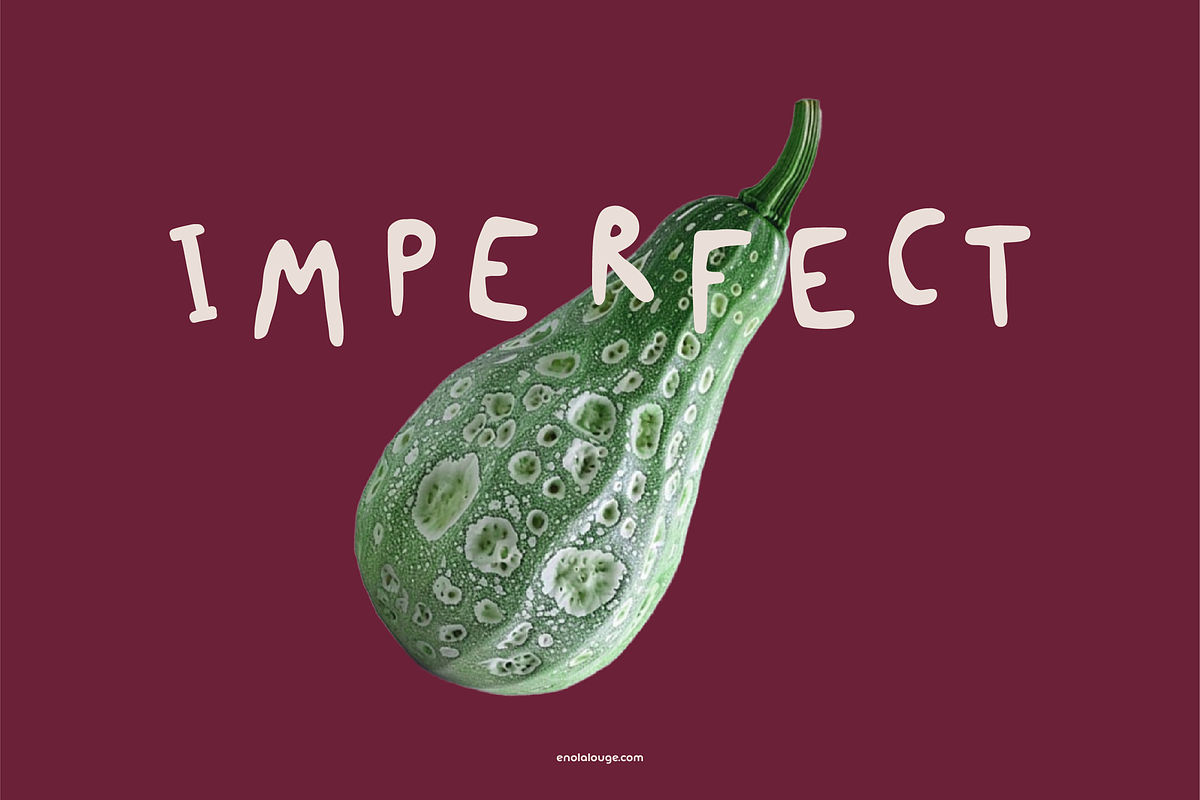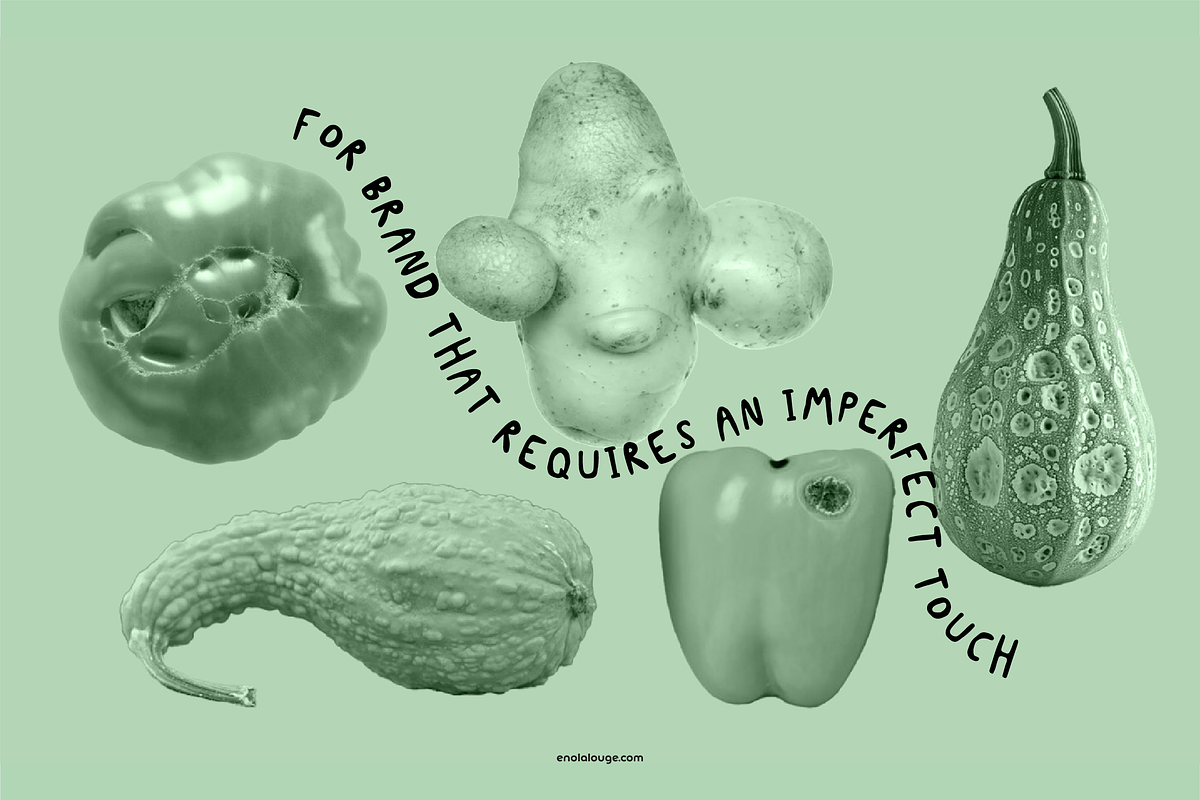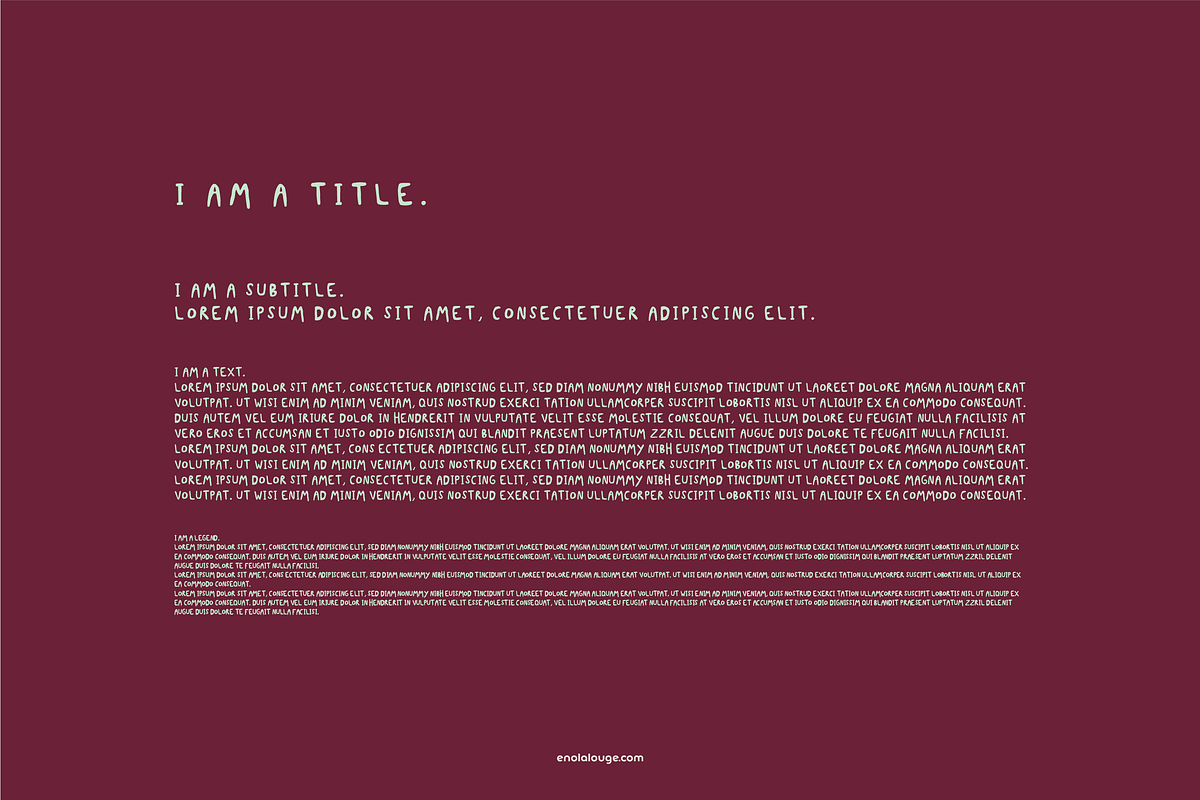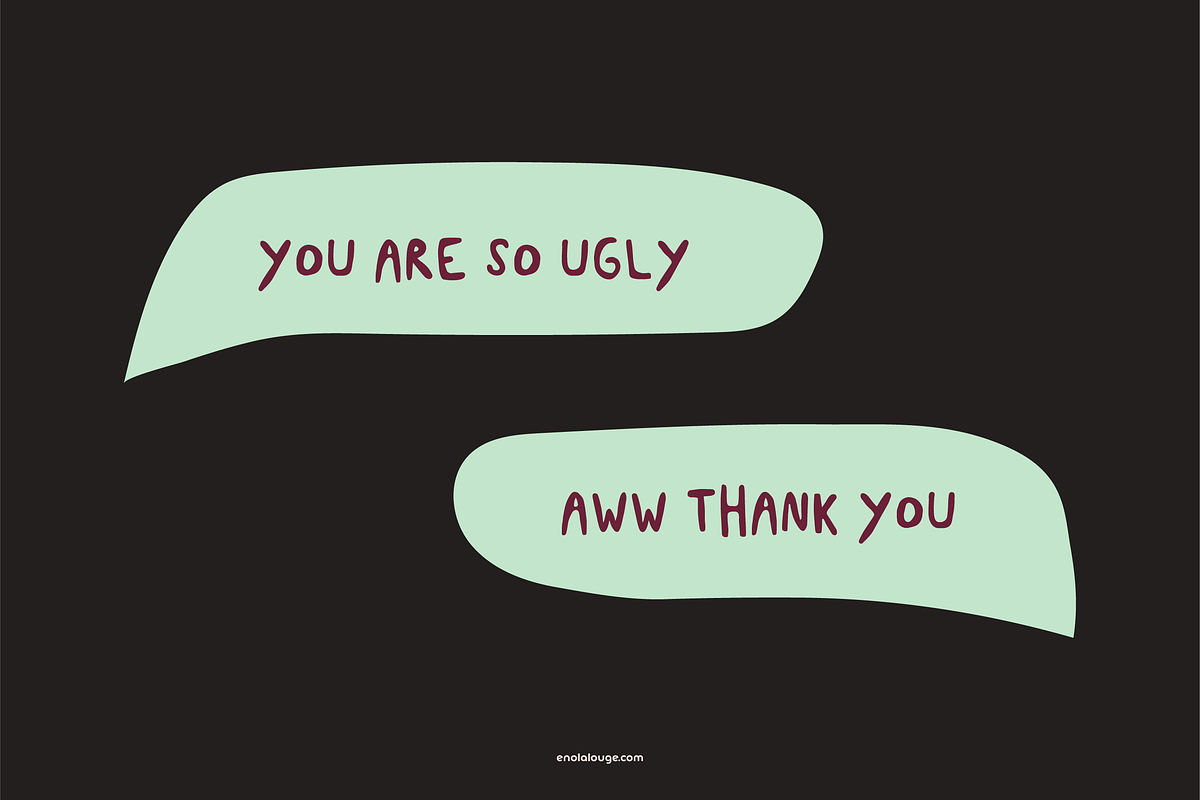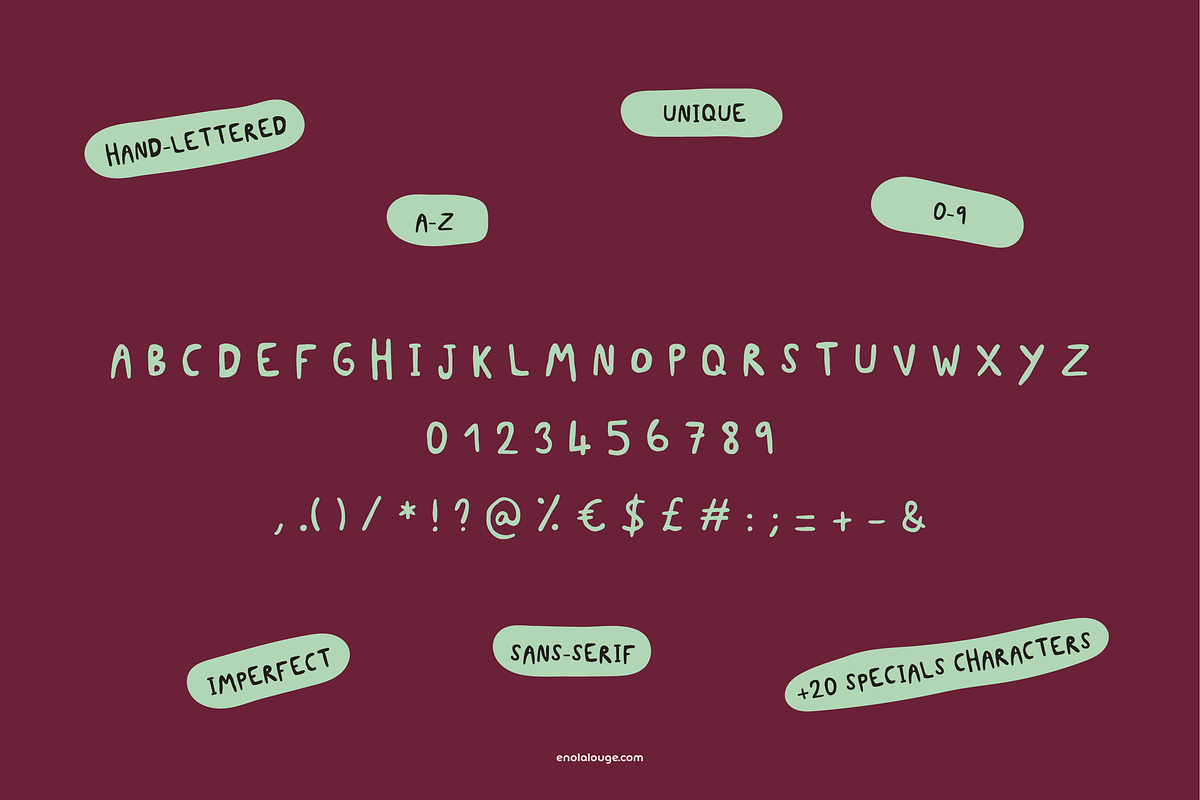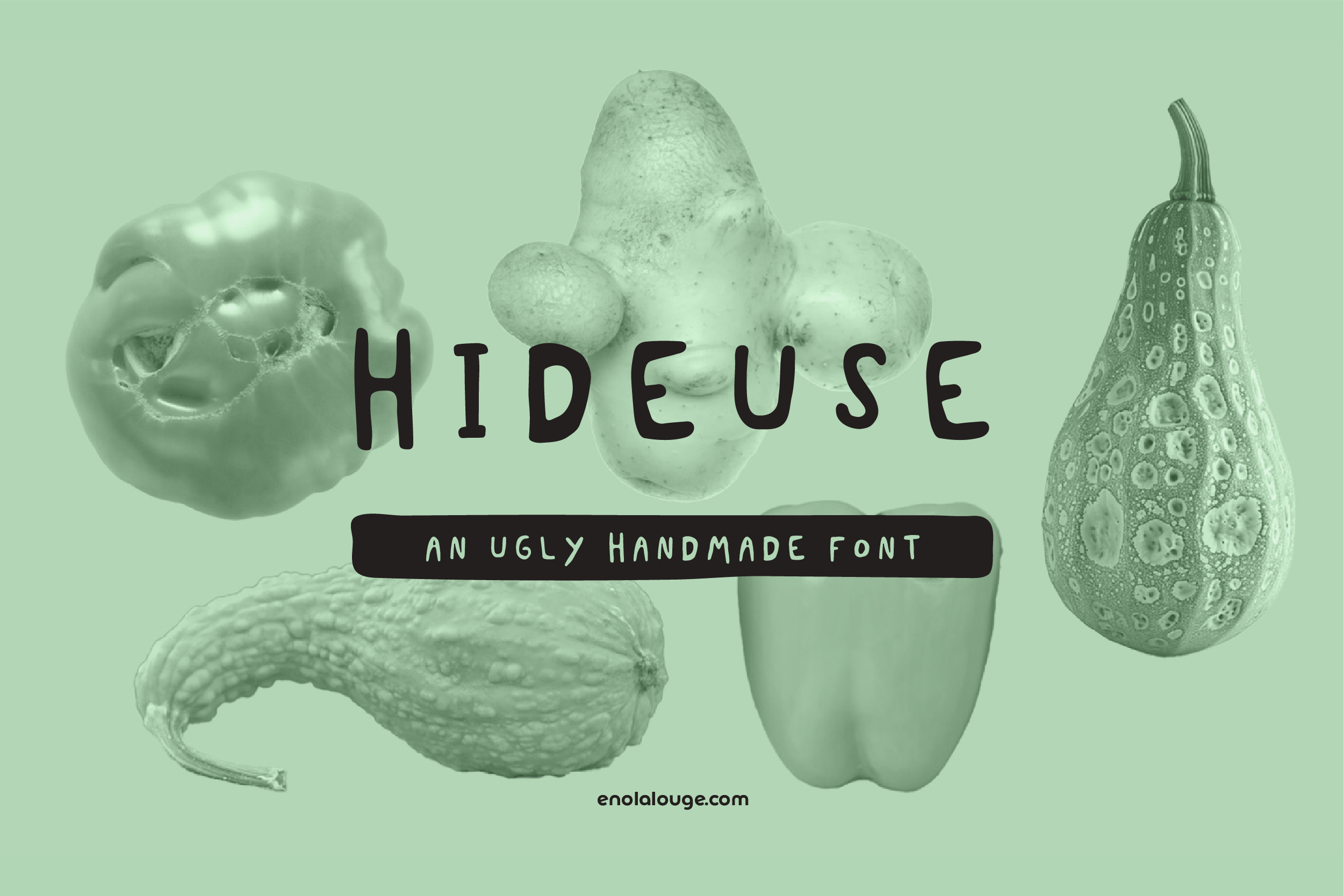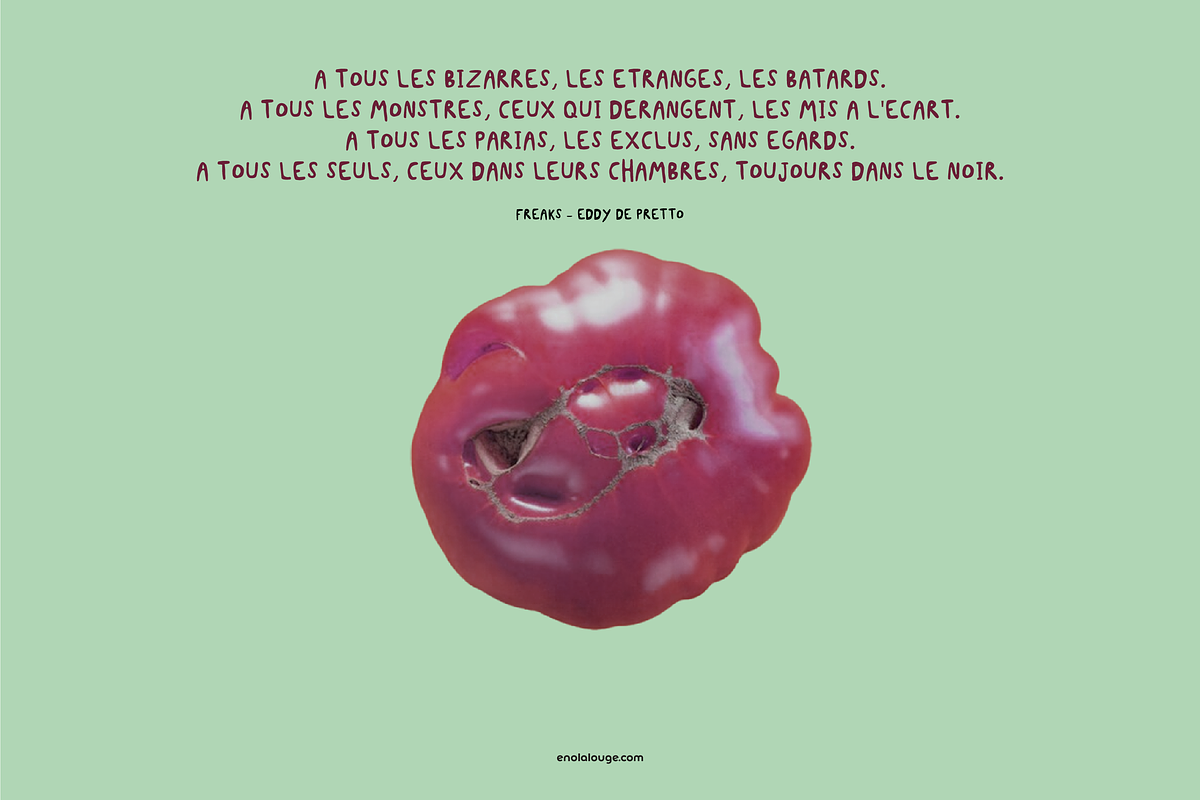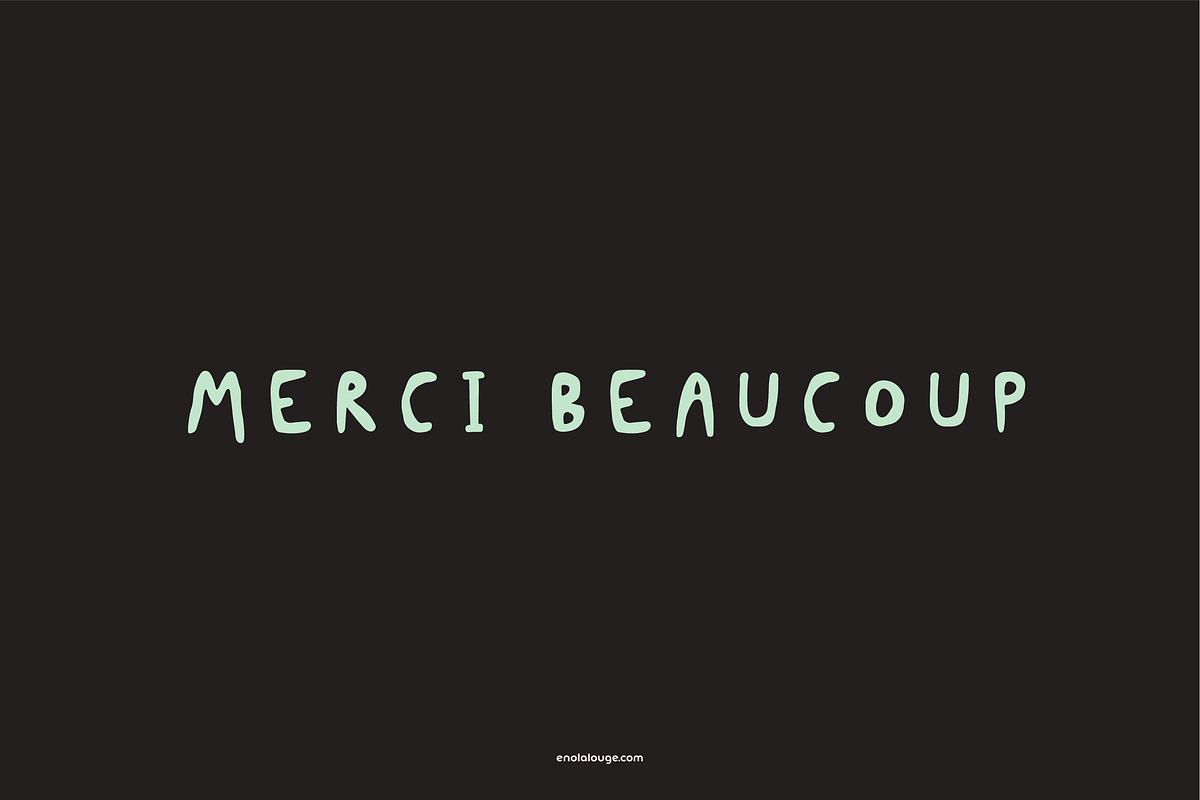
Hideuse - ugly handmade font
Hideuse Font: An Ugly Imperfect Handmade Typeface.
Hideuse is an hideous, handcrafted font that captures the essence of imperfect and very unusual handwriting. Each character is meticulously hand-drawn, bringing a unique and personal touch to your projects.
Why you'll love Hideuse:
- Perfect for logos, branding, quotes, and illustrations
- Adds an handmade mood to any design
- Ideal for food related projects
Font features:
- Uppercase letters (A-Z)
- Numbers (0-9)
- Over 20 symbols and punctuation marks